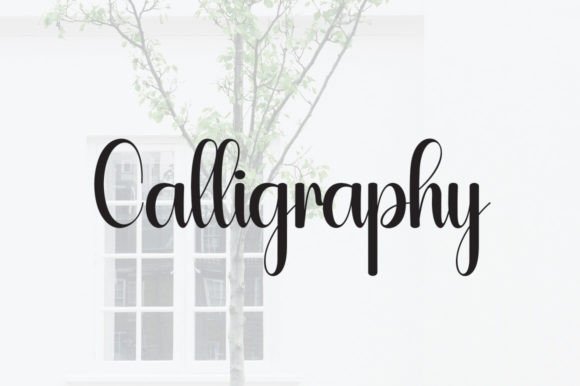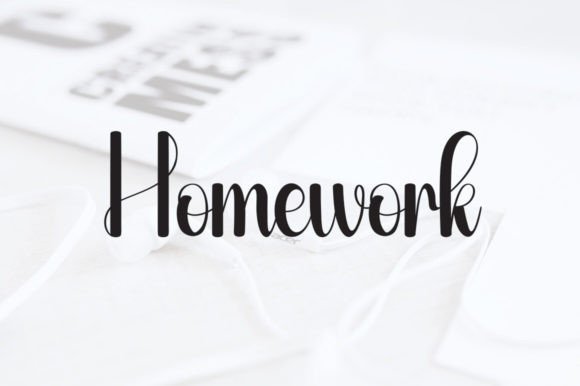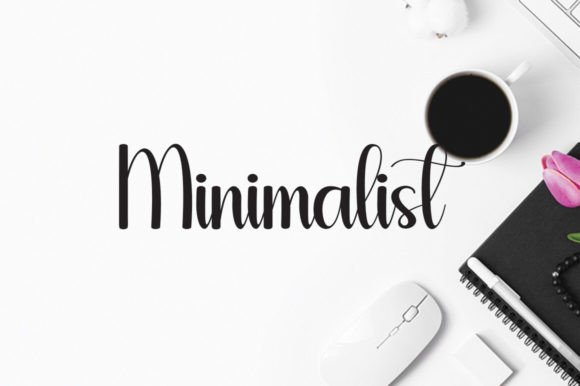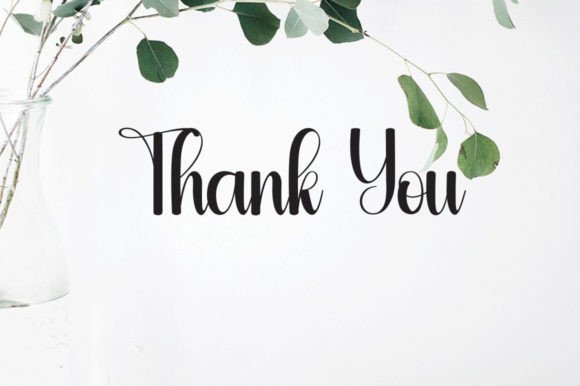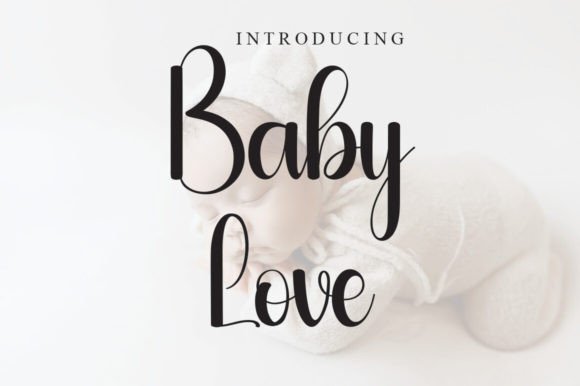
Baby Love Font: The Sweetest Addition to Your Design Toolbox
Are you a designer or crafter looking for a font that exudes warmth, joy, and romance? Look no further than the Baby Love Font, a beautiful handwritten font that is sure to capture the hearts of your audience. In this article, we’ll dive into the world of Baby Love Font, exploring its features, benefits, and uses, and why it’s a must-have for any creative looking to add a touch of sweetness to their designs.
Introducing Baby Love Font
Baby Love Font is a delectable mix of sweet charm and cursive elegance, designed to wrap your design ideas in a blanket of gentle sophistication. This beautiful handwritten font infuses each project with an undercurrent of joy and romance, making it perfect for designers and crafters who want to create visually stunning and emotive designs. With its beguiling curves and delightful usability, Baby Love Font is poised to enhance the visual appeal of your design endeavors, radiating gentle affection with every stroke.
What Makes Baby Love Font So Special?
So, what sets Baby Love Font apart from other fonts in the market? Here are a few reasons why this font is a standout:
- Unique and Elegant Design: Baby Love Font boasts a unique and elegant design that is sure to capture attention. Its cursive strokes and sweet charm make it perfect for designs that require a touch of sophistication and whimsy.
- Highly Versatile: This font is highly versatile and can be used for a wide range of design projects, from wedding invitations and baby shower cards to branding and packaging.
- Easy to Read and Use: Baby Love Font is designed to be easy to read and use, making it perfect for designers and crafters of all skill levels.
- Emotional Connection: This font has the power to create an emotional connection with your audience, evoking feelings of joy, love, and warmth.
Baby Love Font is a perfect addition to any designer’s or crafter’s toolbox. Whether you’re creating:
- Wedding Invitations and Stationery: Add a touch of romance and elegance to your wedding designs with Baby Love Font.
- Baby Shower Cards and Gifts: Create adorable and heartwarming designs for baby showers and gifts with this sweet font.
- Branding and Packaging: Use Baby Love Font to add a touch of whimsy and sophistication to your brand’s packaging and marketing materials.
- Digital and Printable Art: Create stunning digital and printable art with Baby Love Font, perfect for crafters and artists.
Tips for Using Baby Love Font
Here are some tips for getting the most out of Baby Love Font:
- Pair with Other Fonts: Experiment with pairing Baby Love Font with other fonts to create a unique and visually appealing design.
- Use for Headings and Titles: Use Baby Love Font for headings and titles to add a touch of elegance and sophistication to your designs.
- Add Decorative Elements: Add decorative elements, such as flowers or hearts, to enhance the whimsical and romantic feel of the font.
In conclusion, Baby Love Font is a beautiful and versatile font that is sure to capture the hearts of designers and crafters. With its unique and elegant design, high versatility, and emotional connection, this font is perfect for a wide range of design projects. Whether you’re creating wedding invitations, baby shower cards, or branding and packaging, Baby Love Font is a must-have for any creative looking to add a touch of sweetness to their designs.